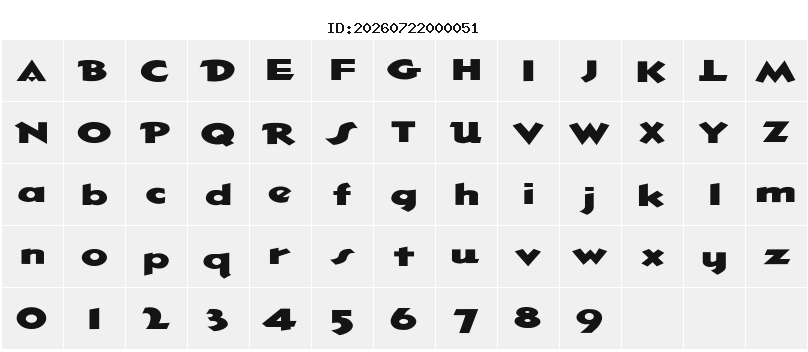
About FZ JAZZY 32 EX.ttf
FZ JAZZY 32 EX.ttf is a modern, elegant sans-serif font designed for ultimate readability and visual harmony. Perfect for branding, headlines, web design, and print materials.